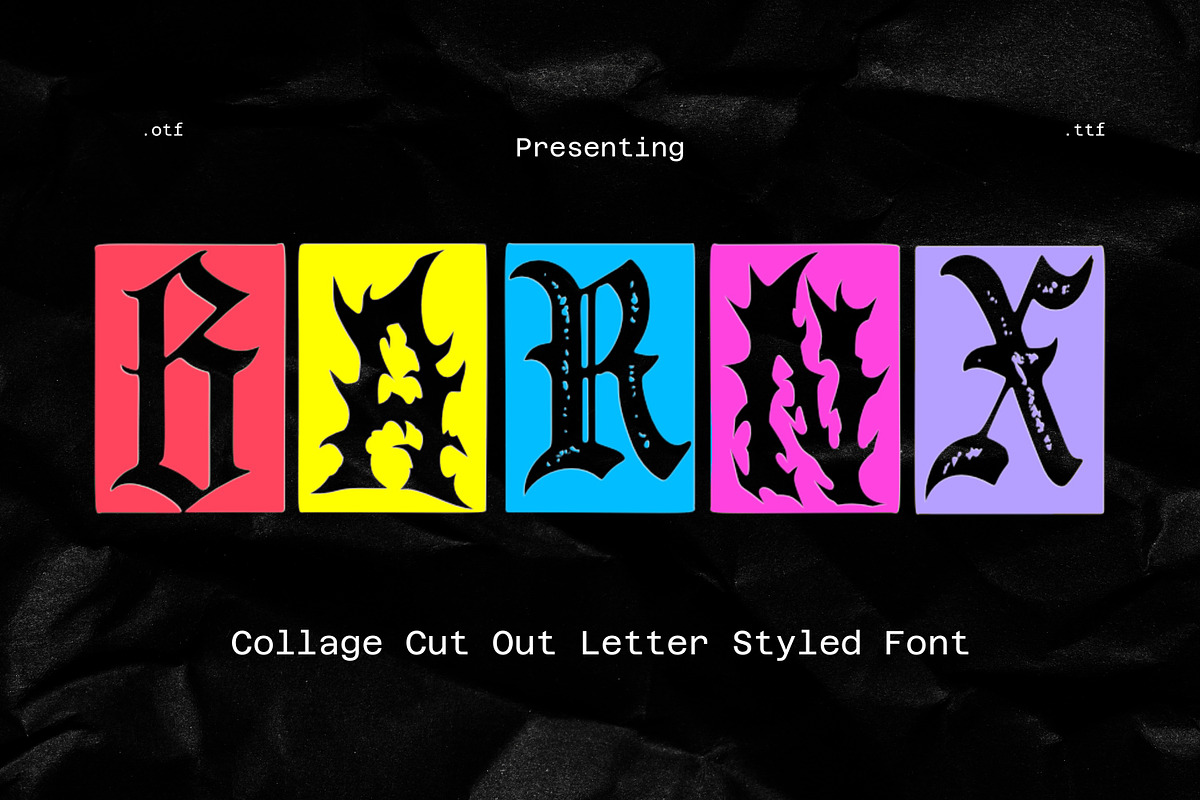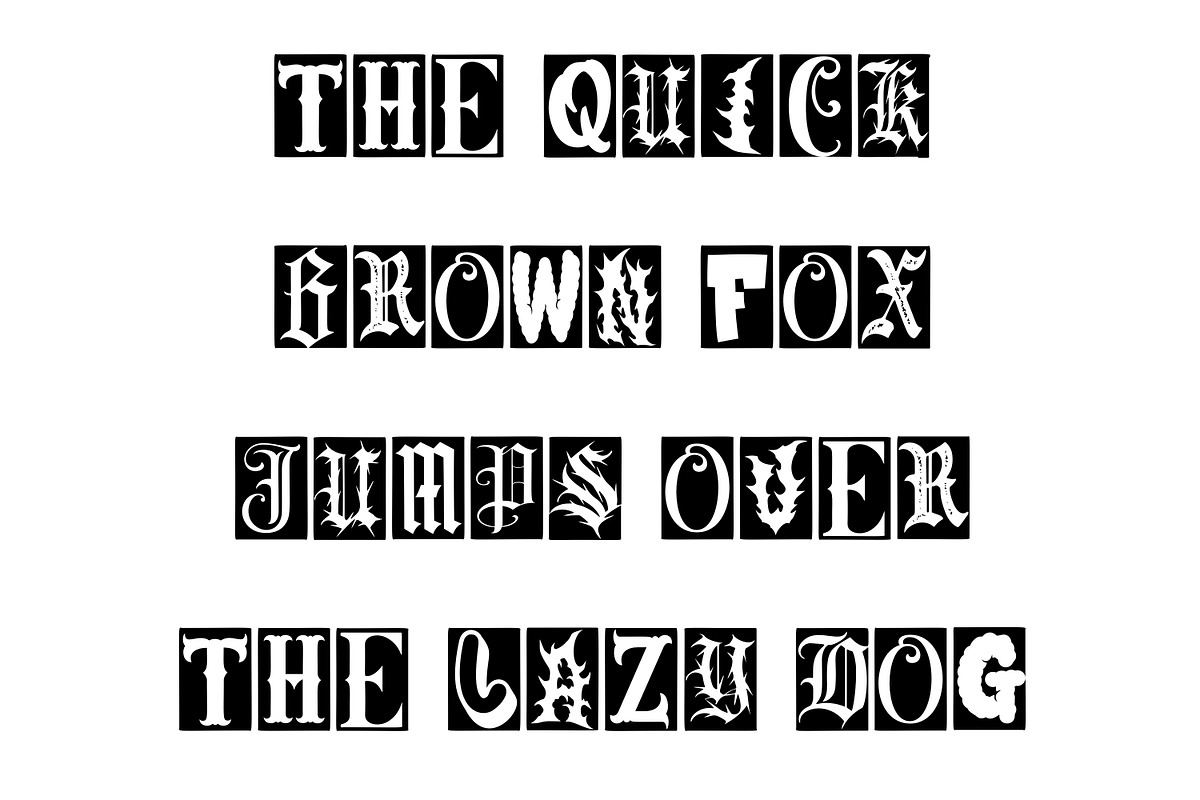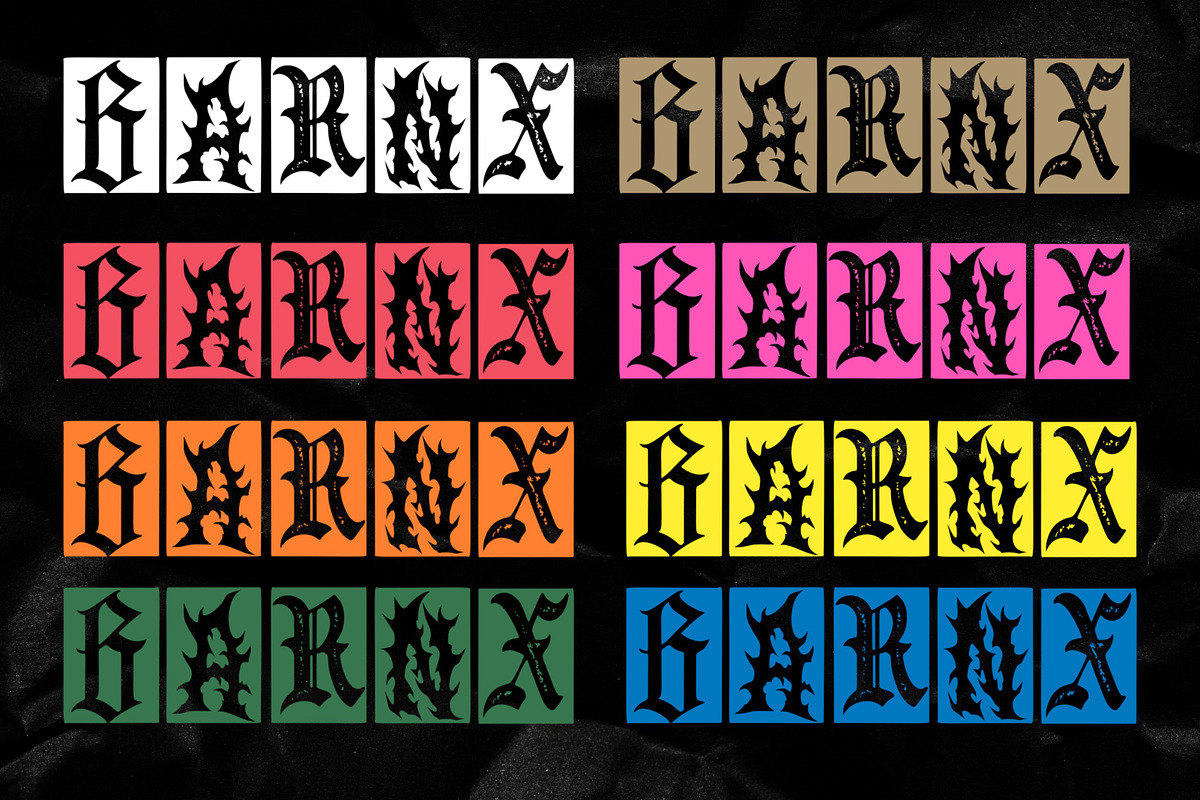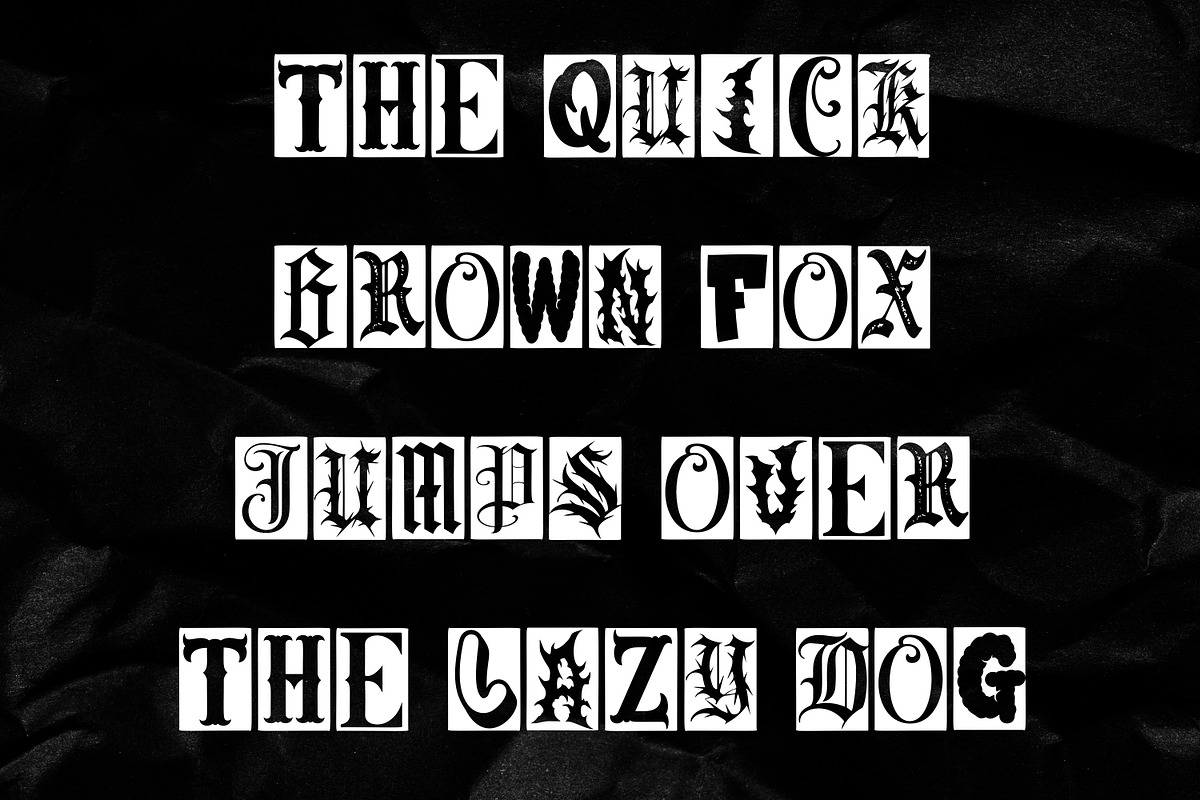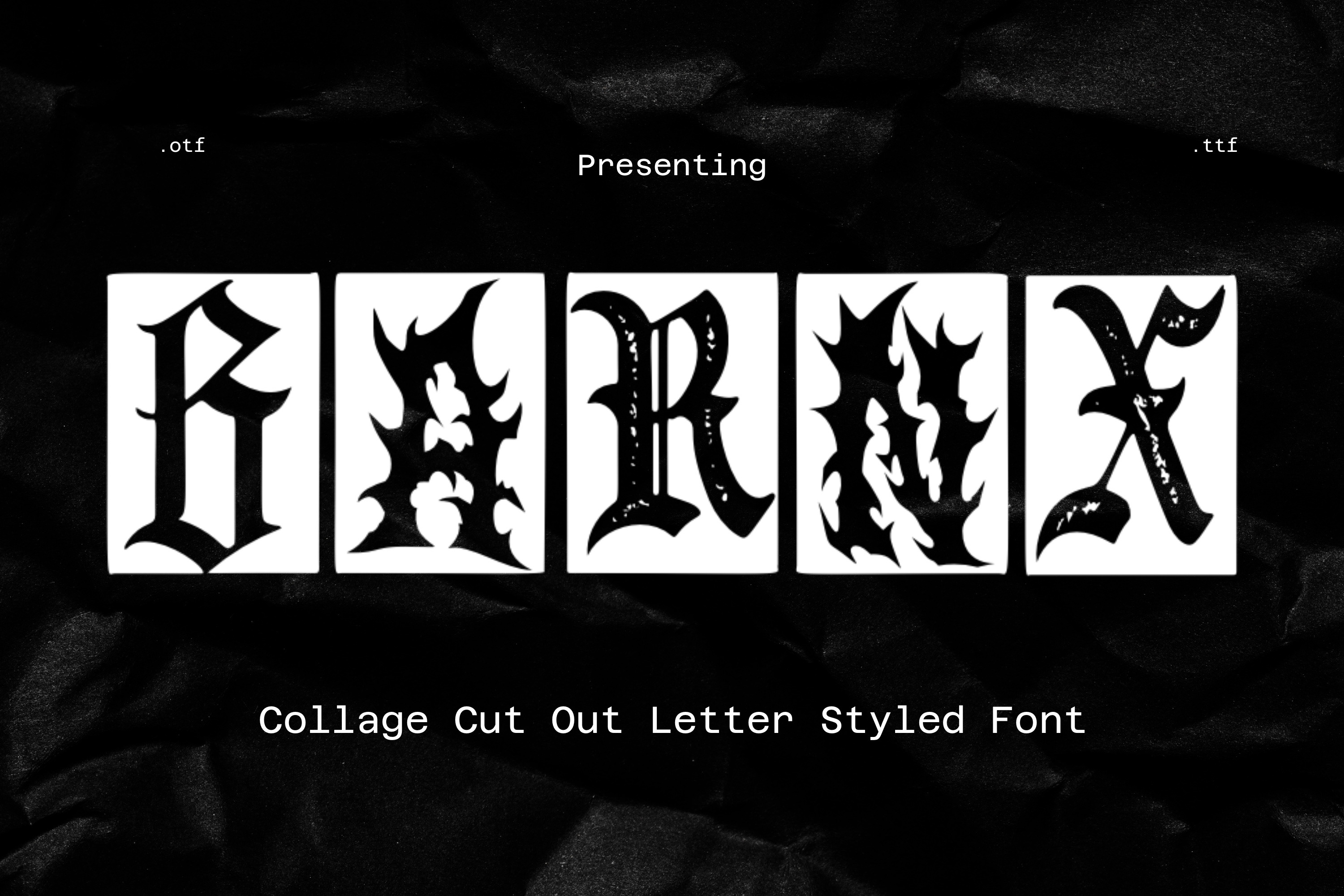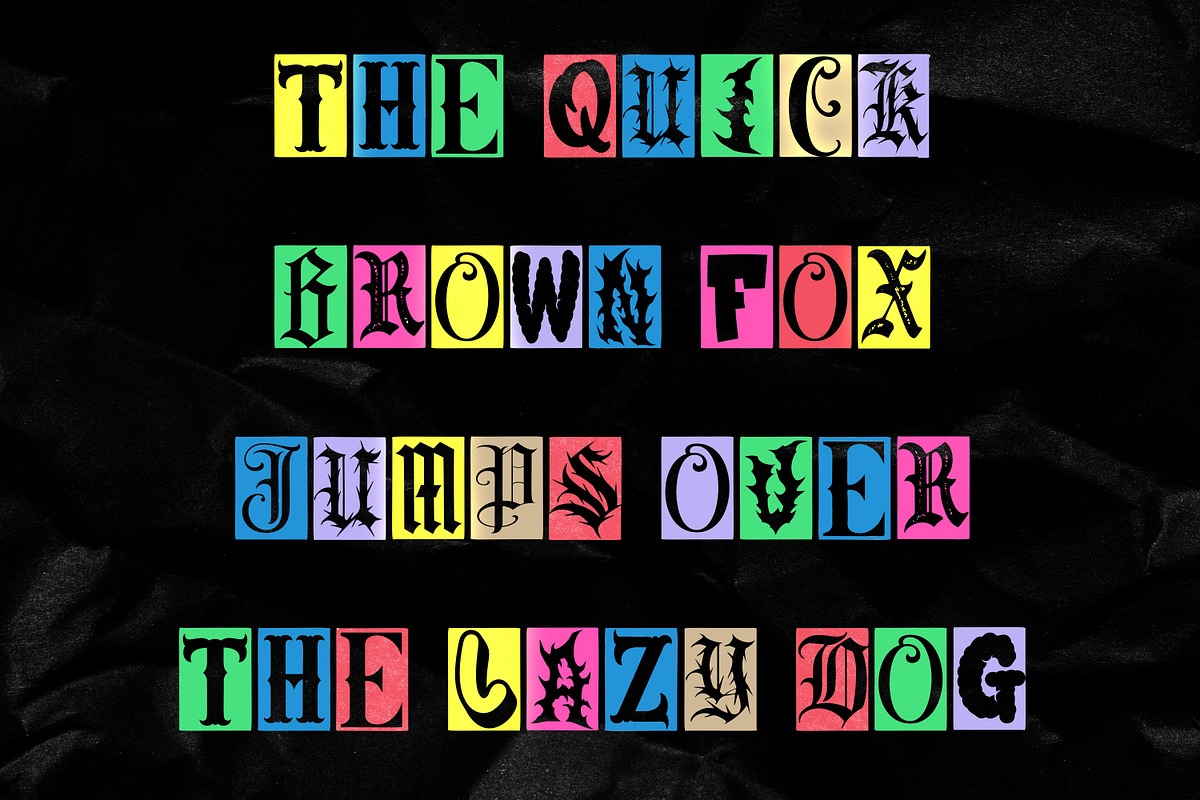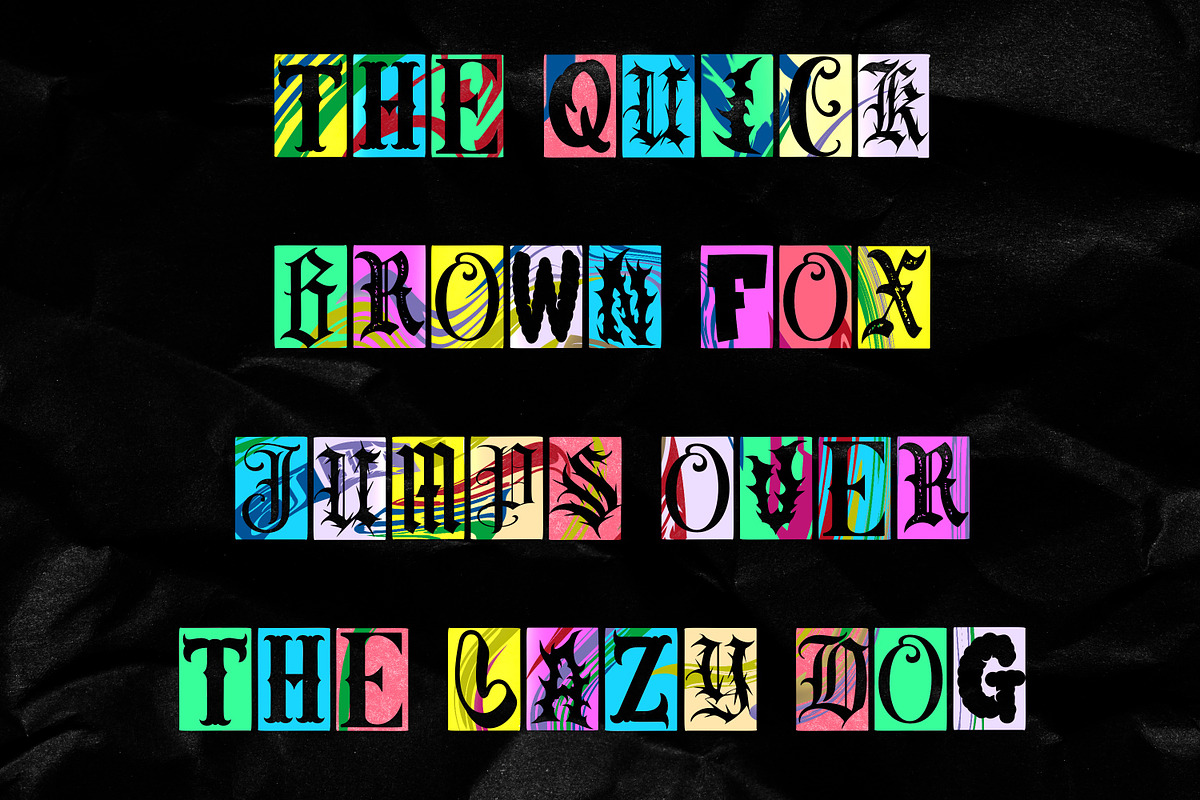
Gothic Collage Font – Ransom Letters
This font has a bold, rebellious personality with a distinctly eclectic edge. Each letter is uniquely styled, pulling inspiration from gothic, vintage serif, ornamental, and even slightly grunge aesthetics. The mix-and-match look gives it a “cut-out collage” or ransom-note feel, where no two characters are the same—making it highly expressive and eye-catching.
It blends sharp blackletter forms with decorative flourishes, dramatic curves, and textured details, creating a sense of controlled chaos. The contrast between structured serif elements and more playful, exaggerated shapes adds to its artistic, unconventional vibe.
Overall, it feels:
- Edgy and alternative
- Vintage-meets-modern
- Artistic and experimental
- Perfect for statement designs
This font works especially well for bold headlines, album-style graphics, streetwear branding, editorial layouts, or any design that aims to stand out and break traditional typography rules.